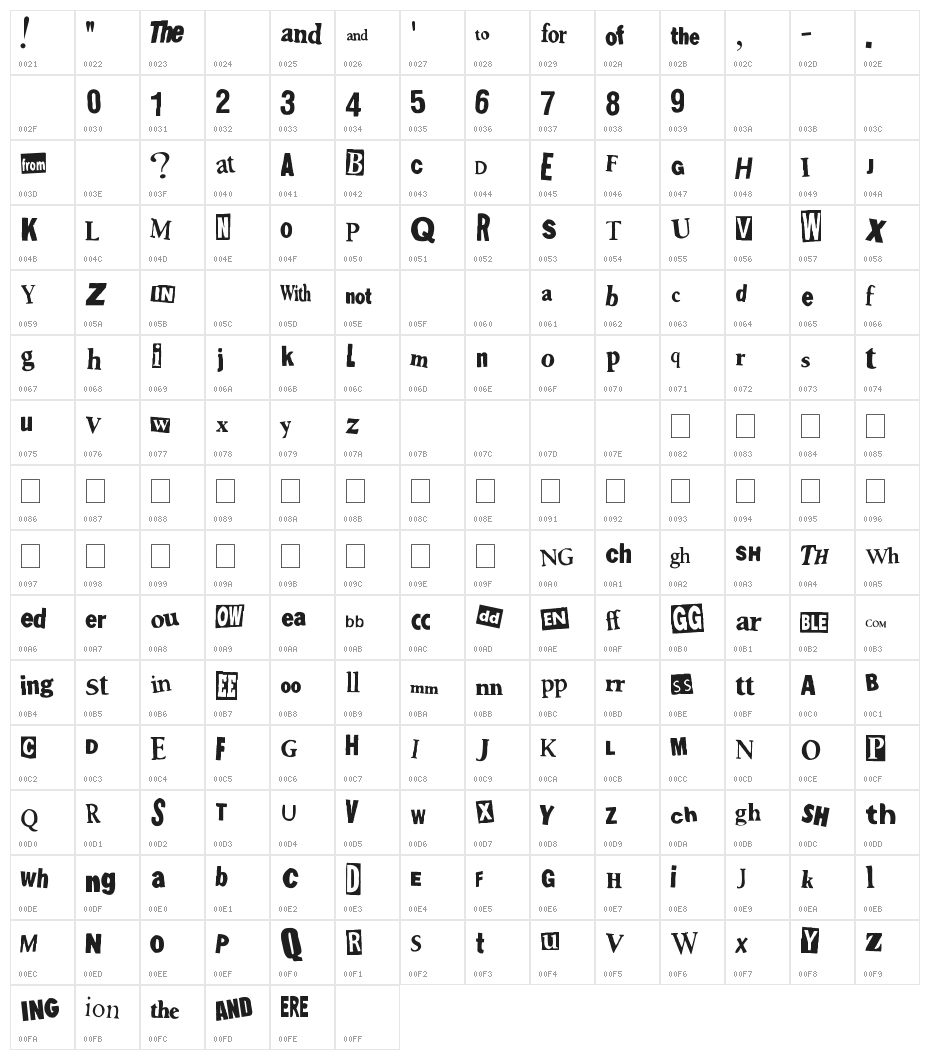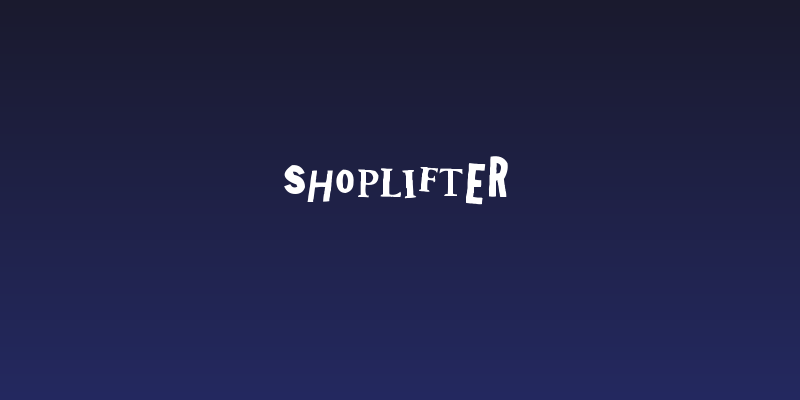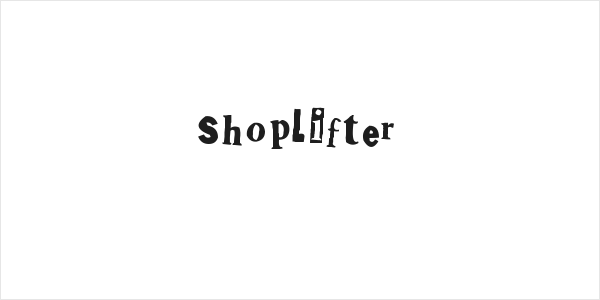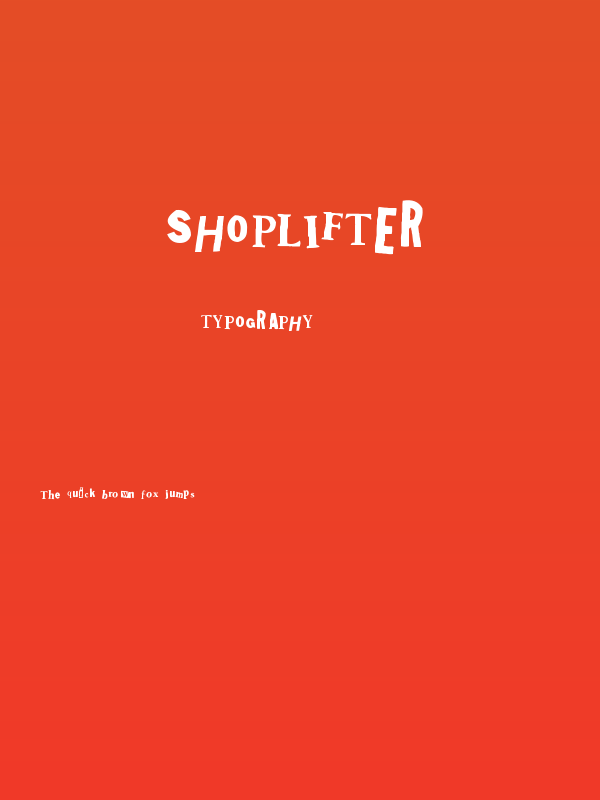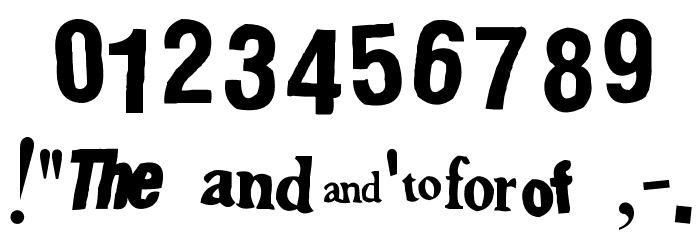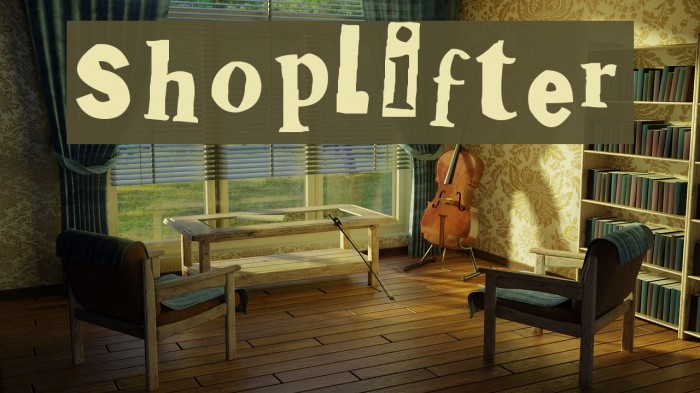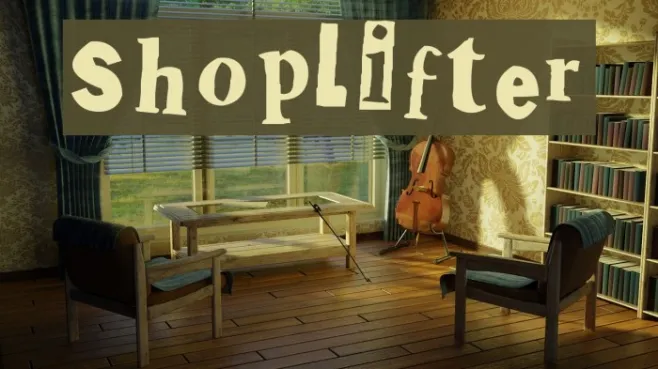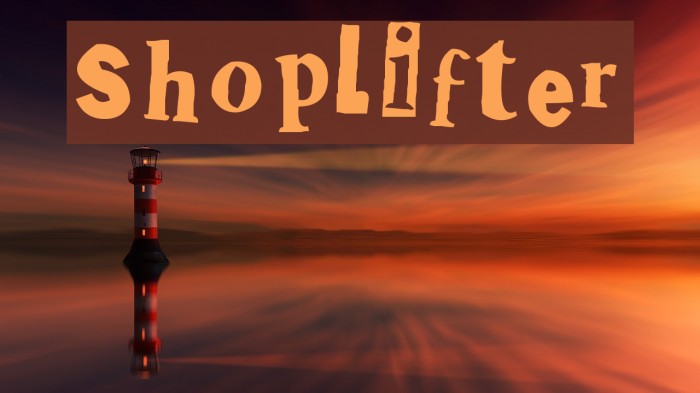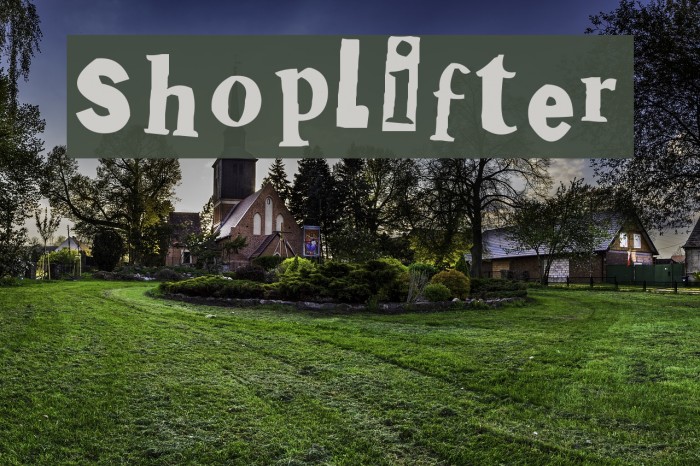
Shoplifter Font
Shoplifter Description
This font features a playful and eclectic style, with each character appearing as if it has been cut from different sources and assembled together. The letters vary in size, shape, and orientation, creating a dynamic and eye-catching effect. Some characters are bold and blocky, while others are slender and elongated. The mix of uppercase and lowercase letters, along with the irregular alignment, adds to the whimsical and informal feel. This font is reminiscent of ransom notes or collage art, making it ideal for projects that require a quirky and unconventional look.
| Use Case | Headlines, Posters, Artistic Designs |
| Proposed Projects | Ideal for creative projects such as posters, album covers, and artistic flyers where a quirky and unconventional look is desired. |